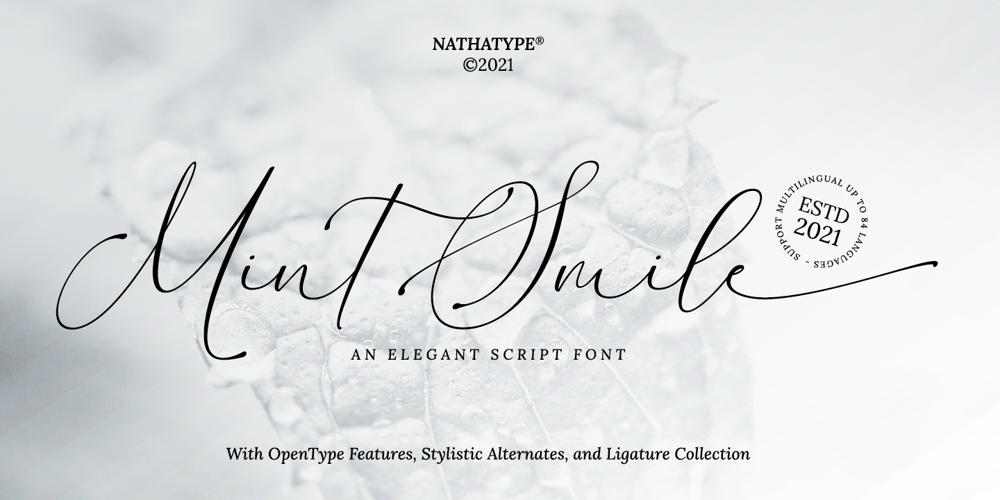
Mint Smile Font Family was designed by Donis Miftahudin and published by Nathatype. Mint Smile contains 1 styles and family package options. Are you looking for a script font? Do you dream of creating headings that stand out and inspire creativity, imagination, and endless fun? Wait no more, we will give you the best choice.Mint Smile-Script Font Mint Smile is an fresh and modern script with a handmade calligraphy style. Perfect for adding a touch of whimsy to your already amazing designs. This font is perfect for branding projects, home appliance design, product packaging, use in business cards, invitation cards, etc. Simply as a stylish text overlay onto a background image or anything that requires a touch of elegance.Our font always includes Multilingual Support to make your branding reach a global audience. Inspire your audience, clients, or guests with this beautiful, statement font. Features: Ligatures Stylistic Sets Swashes PUA Encoded Numerals and Punctuation Thank you for downloading premium fonts Natha Studio